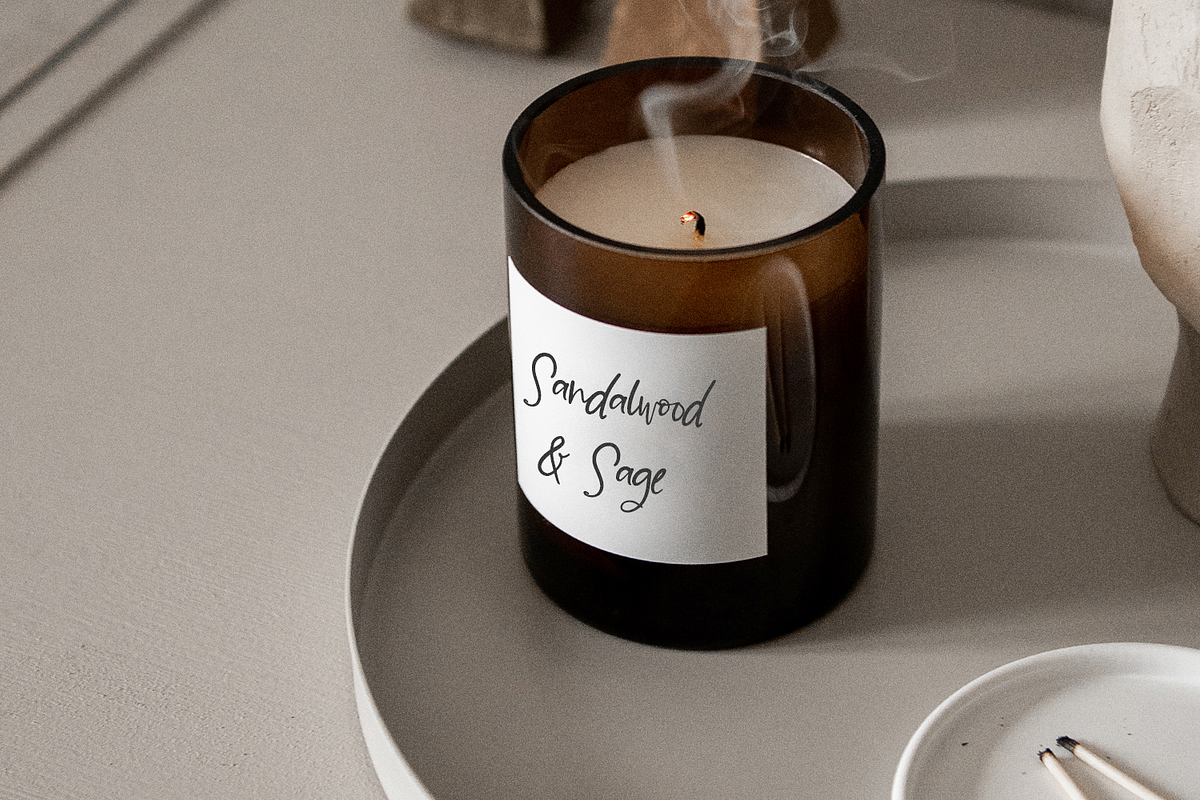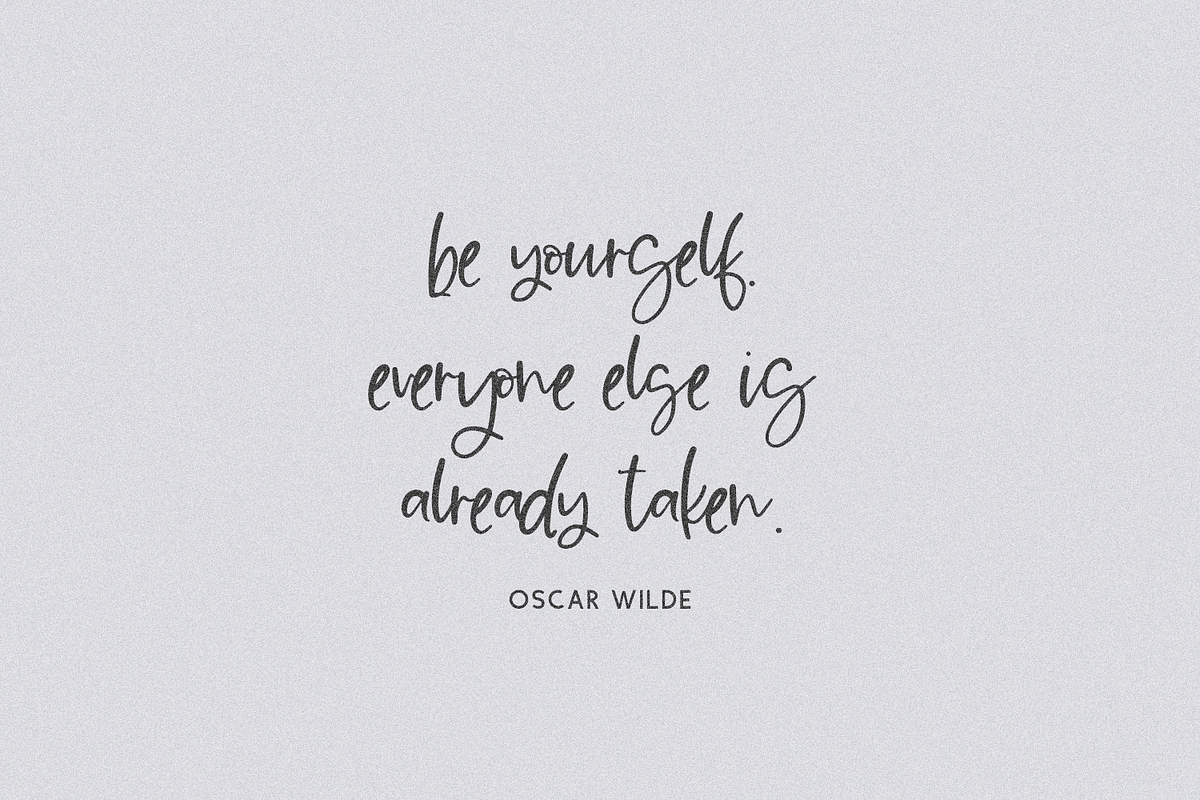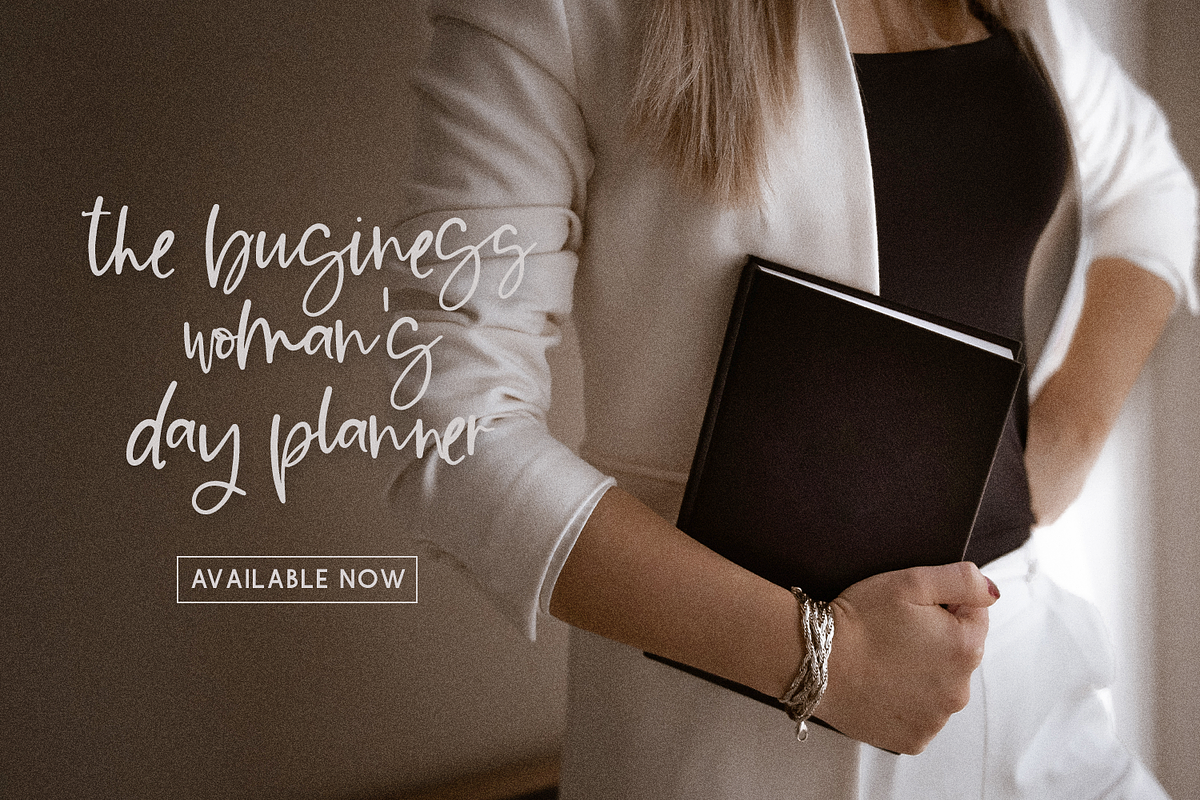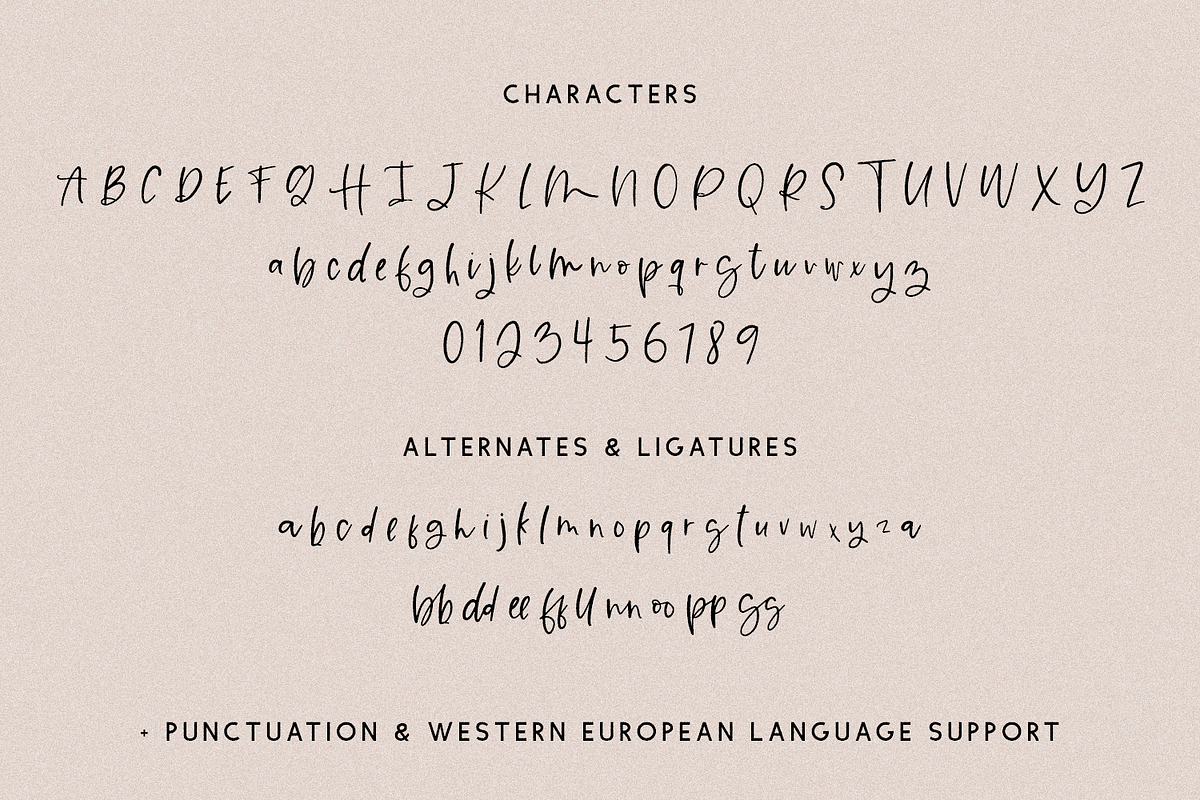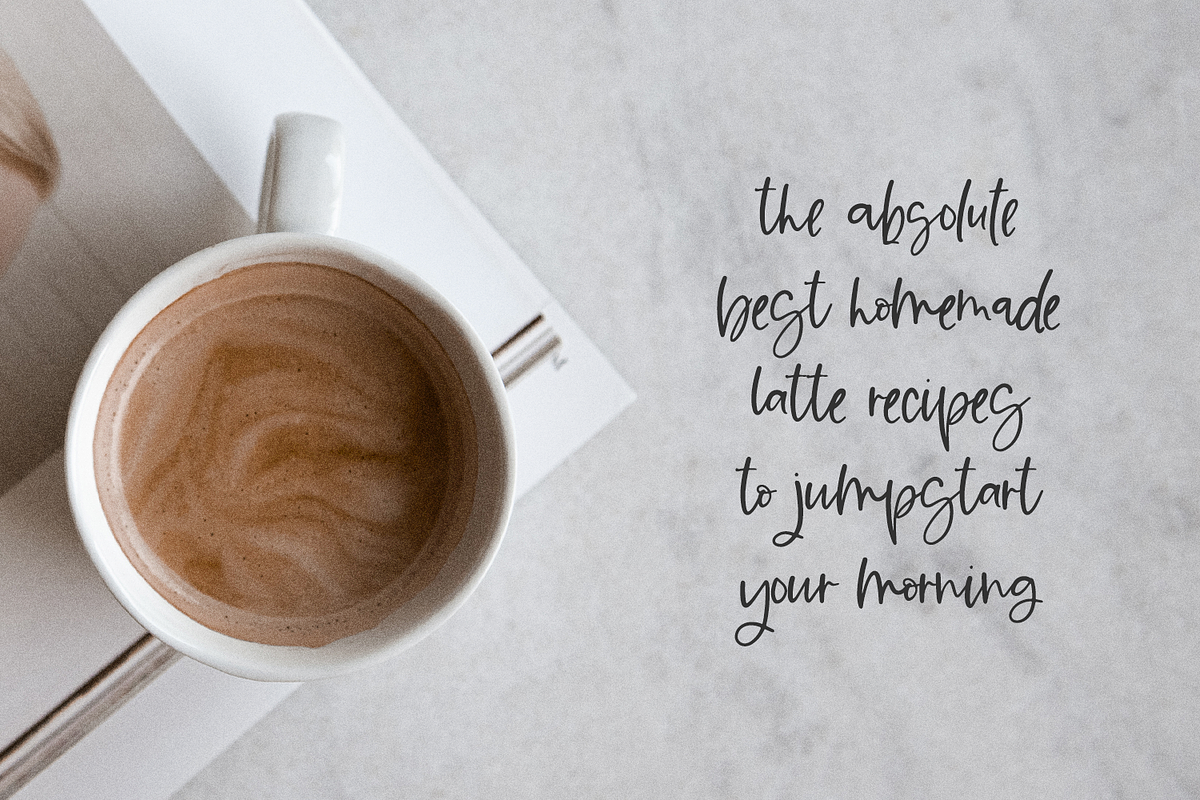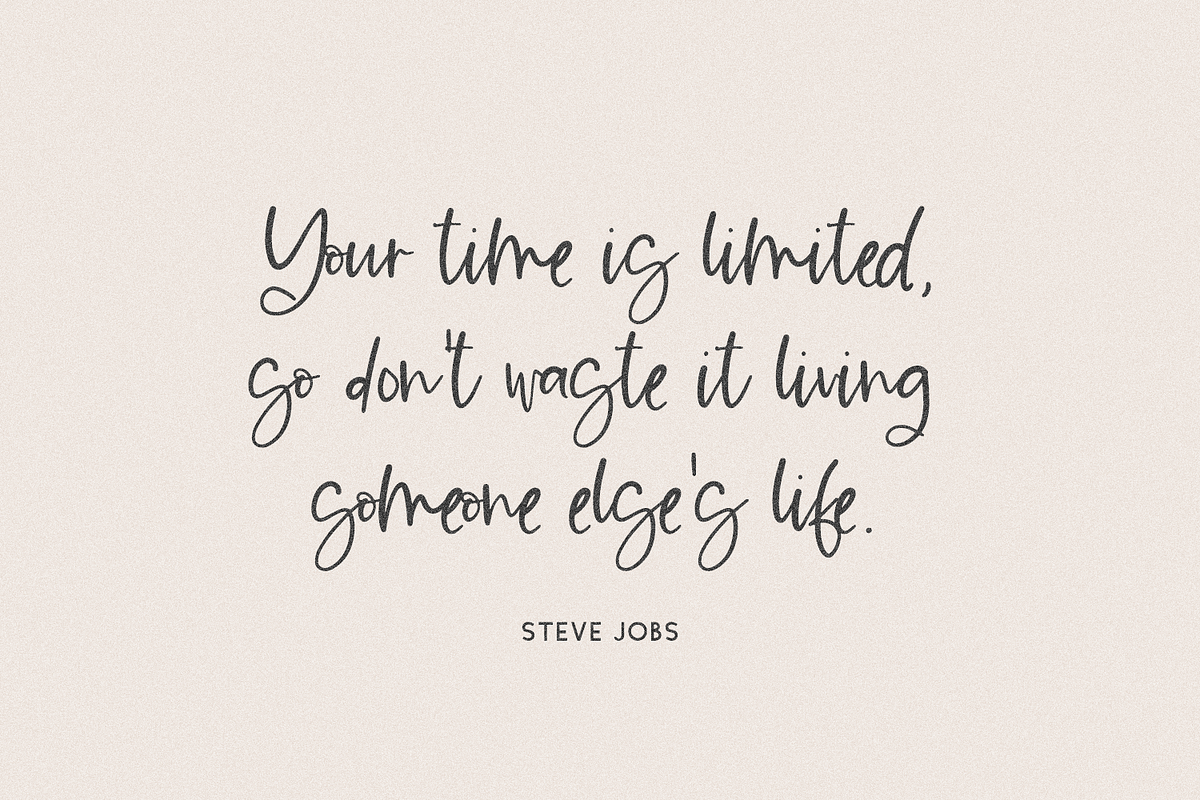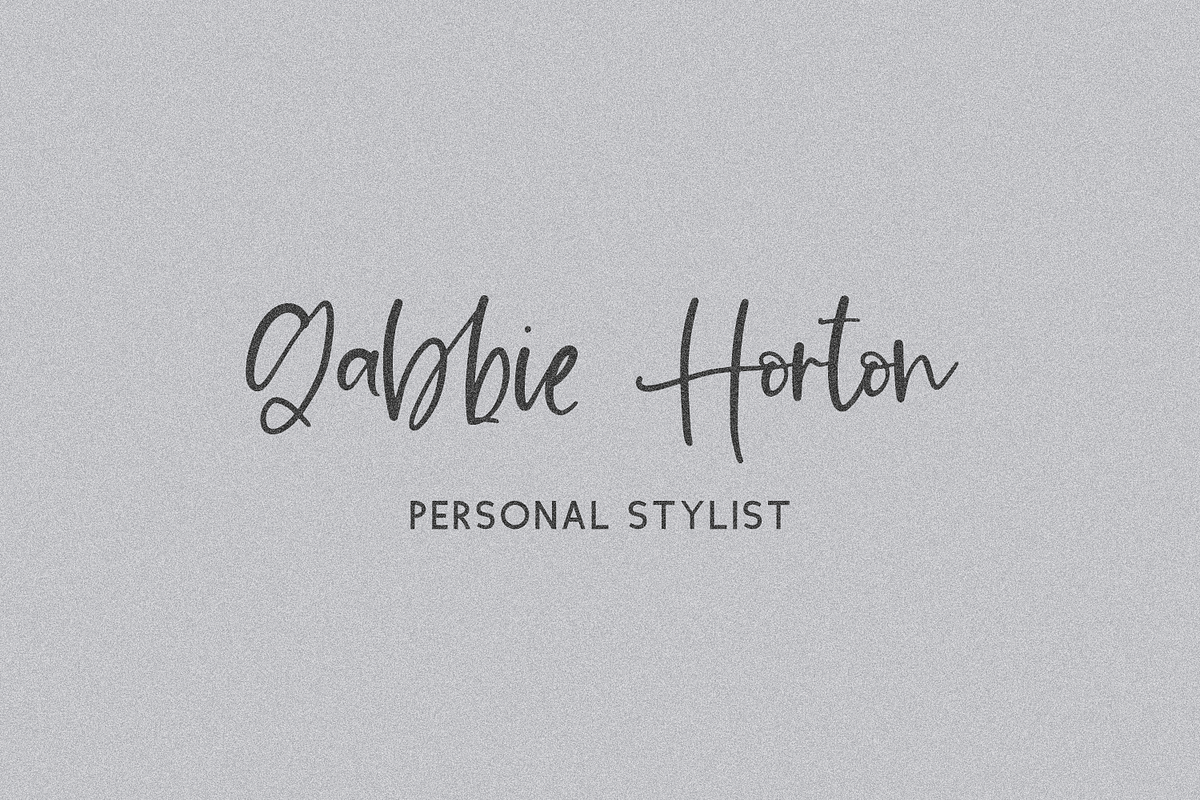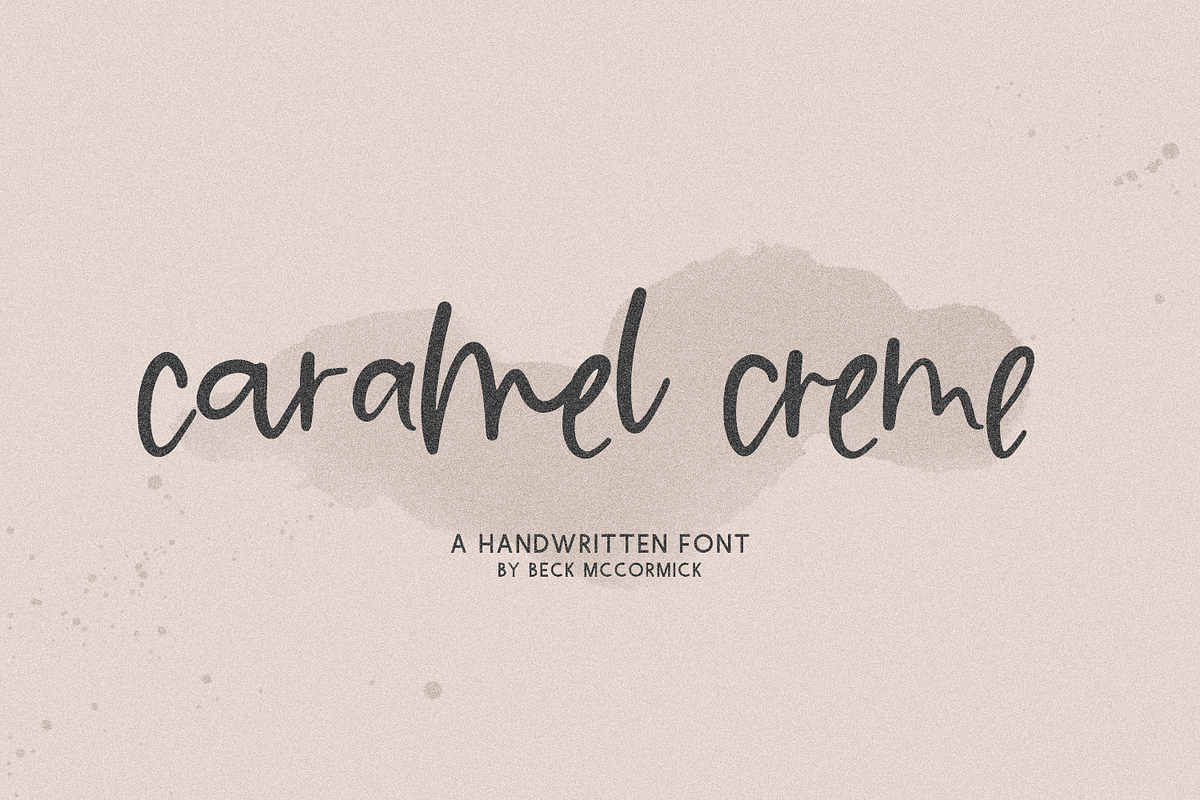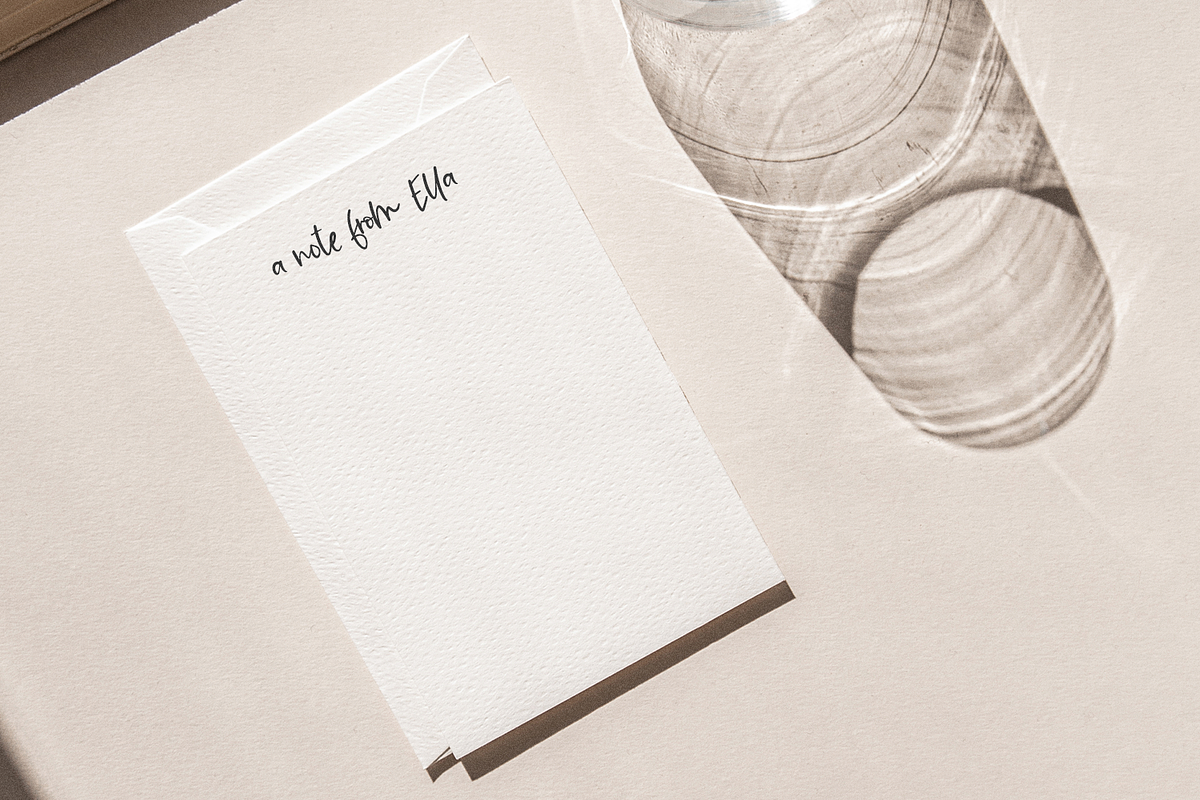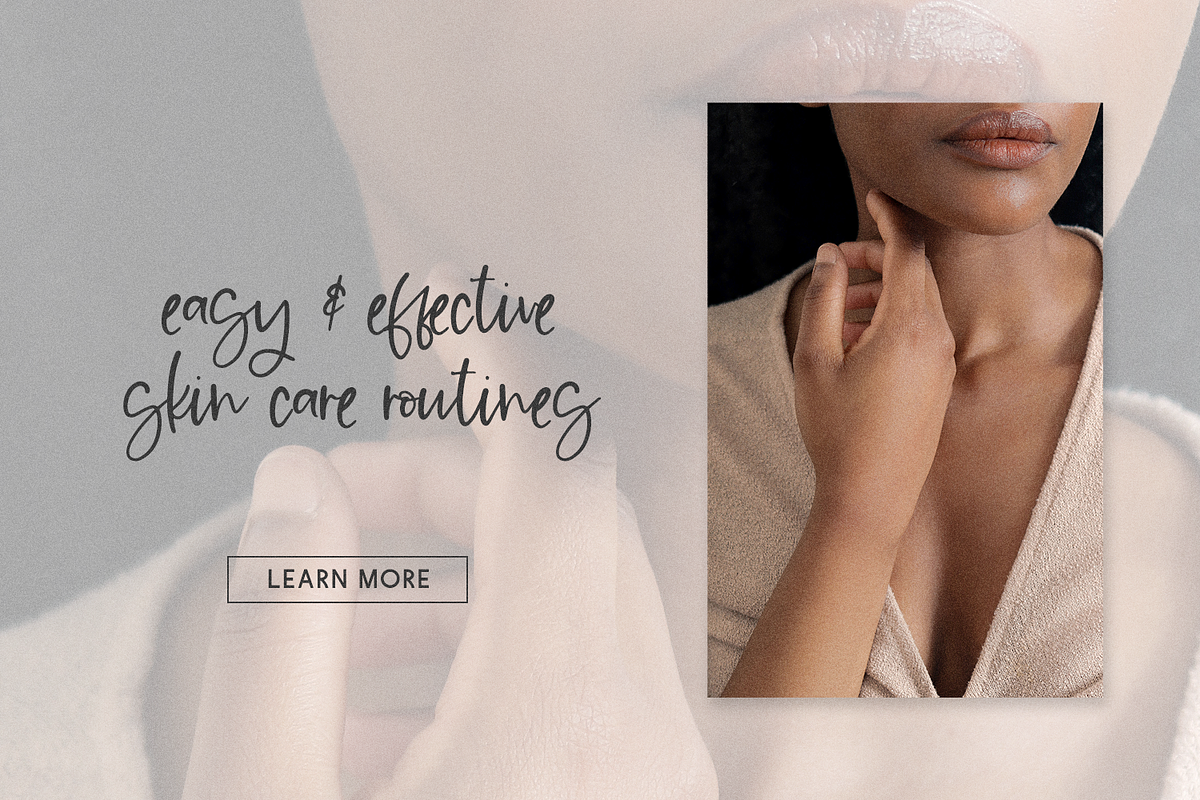
Caramel Creme Script
Introducing Caramel Creme, a modern script. Caramel Creme is like natural handwriting with a feminine feel.
Caramel Creme includes:
- full upper + lowercase characters
- numbers + punctuation
- Western European Language Support
- 27 alternate characters
- 9 ligatures - bb, dd, ee, ff, ll, nn, oo, pp, ss